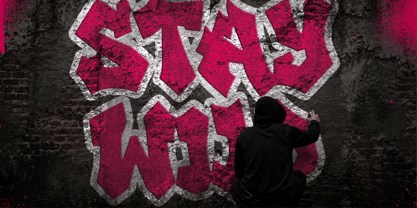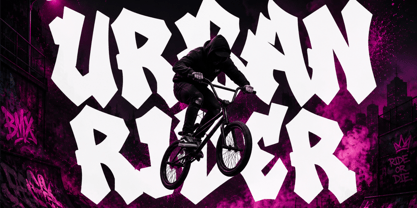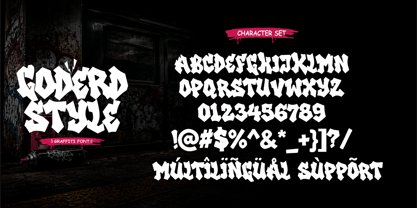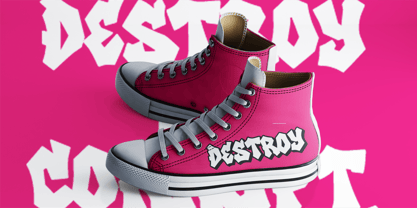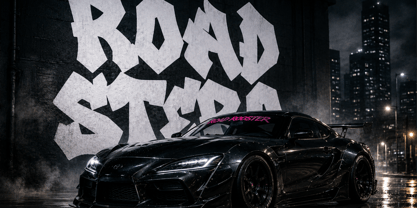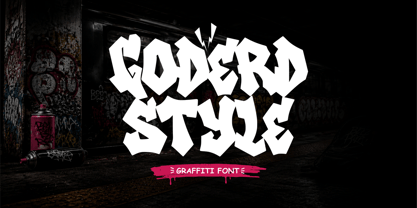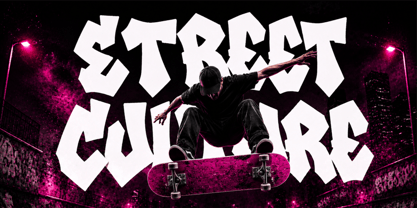
Goderd Style
Goderd Style is a heavy graffiti display font inspired by authentic urban lettering, street culture, and bold wall murals. Designed with oversized proportions, thick strokes, and confident construction, this typeface captures the raw spirit of graffiti while maintaining excellent readability for professional design work. Every letter delivers a powerful visual presence, allowing headlines and titles to become the main attraction in any composition.
Built for designers who want typography with maximum impact, Goderd Style transforms ordinary text into expressive urban artwork. Its bold shapes are influenced by classic throw-up graffiti and contemporary street lettering, creating a modern display font that feels energetic, rebellious, and unmistakably original. The carefully balanced forms ensure each character remains clean and recognizable while preserving the authentic graffiti attitude that defines the style.
The font includes uppercase characters, numbers, punctuation, and multilingual support, making it suitable for a wide range of international creative projects. Whether used for branding or promotional graphics, Goderd Style provides consistent performance across print and digital media.
Goderd Style excels in streetwear branding, apparel graphics, skate culture, sneaker campaigns, music promotions, hip-hop artwork, festival posters, esports graphics, gaming titles, YouTube thumbnails, podcast covers, album artwork, event flyers, stickers, packaging, merchandise, logo concepts, advertising, and social media campaigns. Its bold silhouette ensures outstanding visibility even from a distance, making it ideal for projects where typography needs to grab attention instantly.
The font also performs exceptionally well for large-format applications such as billboards, banners, storefront signage, exhibition displays, and promotional materials. Its heavy construction maintains clarity at various sizes while preserving the expressive graffiti personality that makes it unique.
Goderd Style offers the perfect combination of authentic street aesthetics and professional usability. Designers can easily pair it with vibrant colors, spray paint textures, concrete backgrounds, halftone effects, distressed graphics, or modern minimal layouts to create distinctive urban visuals. Whether you're developing fashion branding, music merchandise, creative advertising, or eye-catching social media content, Goderd Style delivers bold typography that communicates confidence, creativity, and contemporary street culture with unforgettable impact.